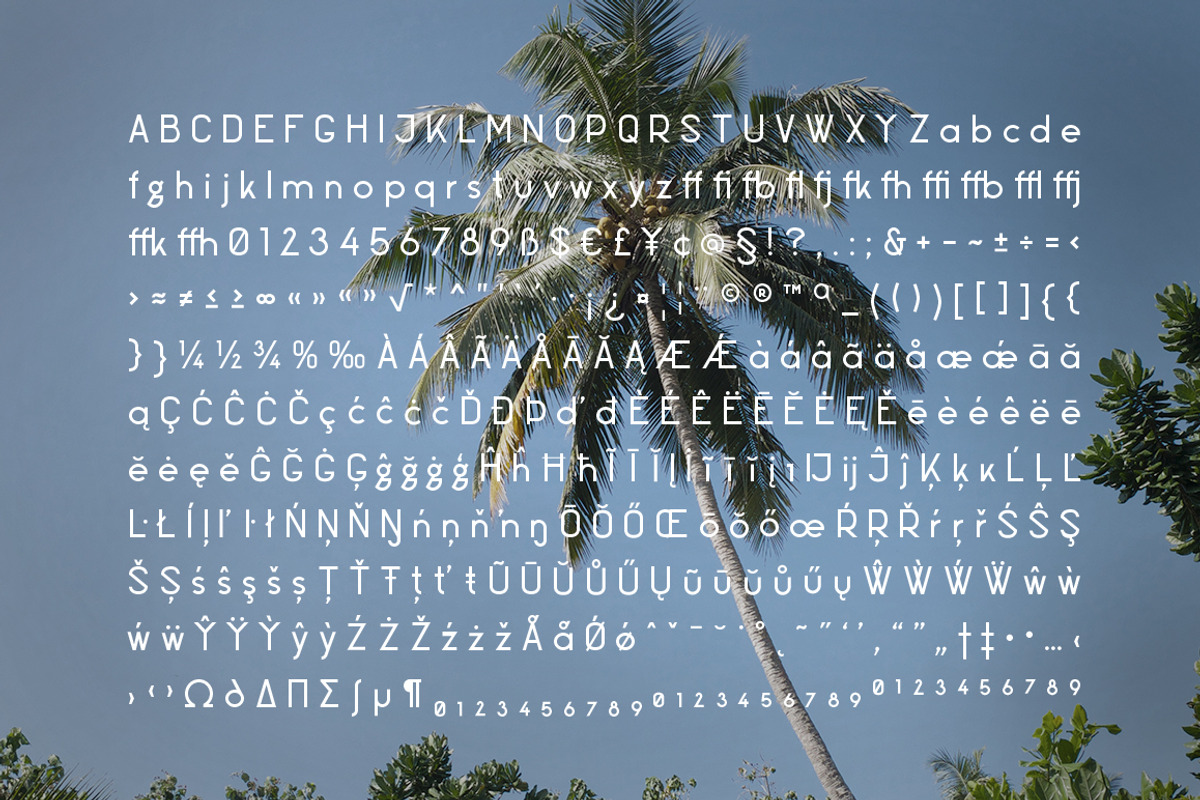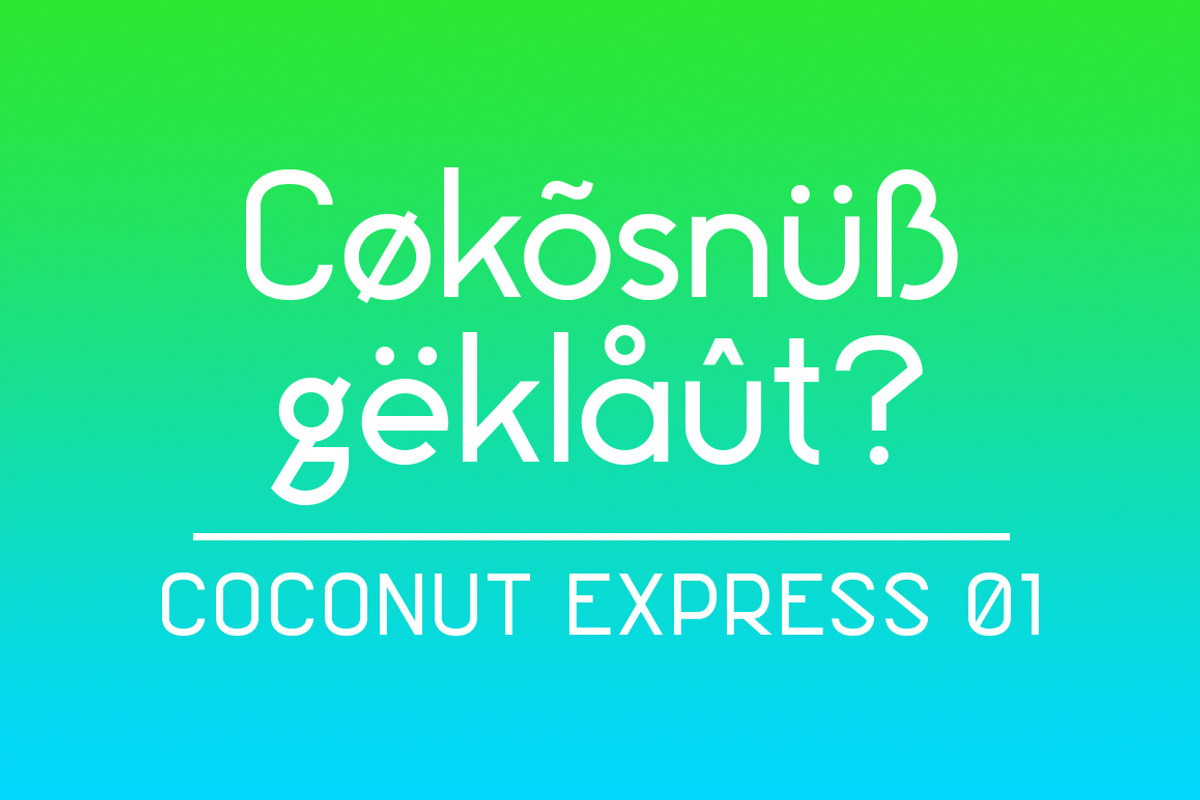
Coconut Express Font
Coconut Express Font by NIZE Shop is a font selected for branding, posters, packaging, typography.
- There are some special characters like the "S", "g", "?".
Why Coconut Express Font is worth a look
Coconut Express Font by NIZE Shop fits naturally into Branding, posters, packaging, typography.